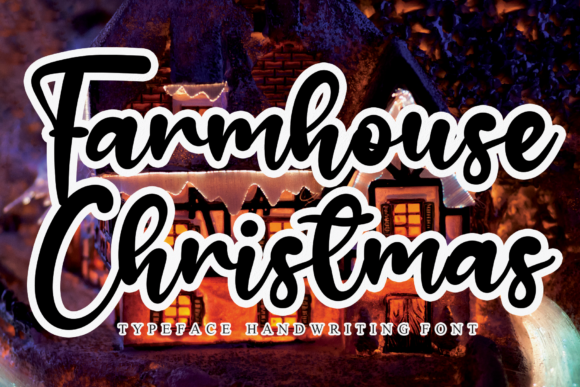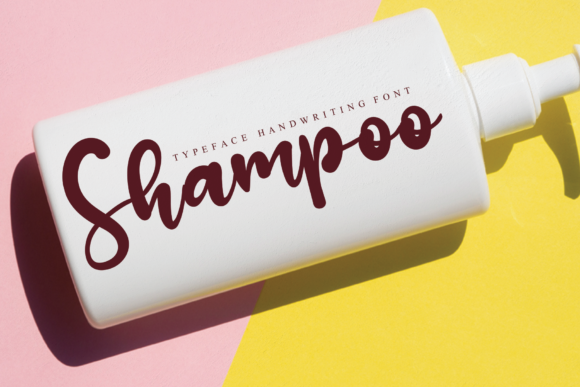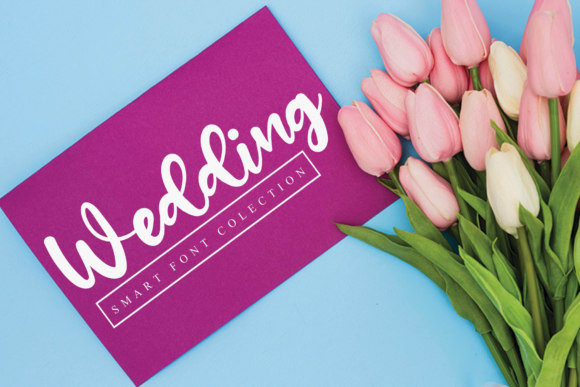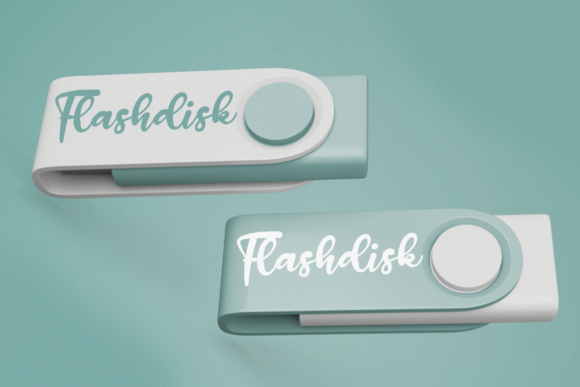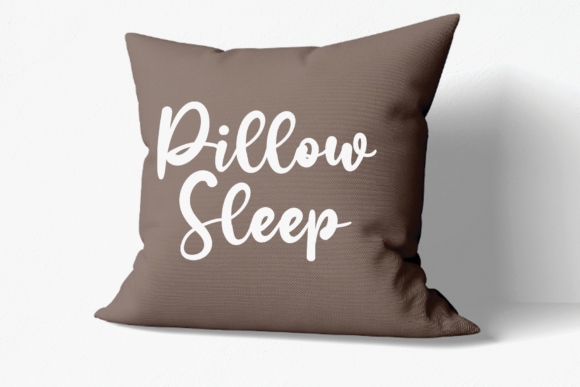
Farmhouse Christmas
About Farmhouse Christmas Font
Farmhouse Christmas is a delicate and elegant handwritten font. Its distinct and well rounded letters make this font a masterpiece. Fall in love with its incredibly versatile style and use it to create spectacular designs!